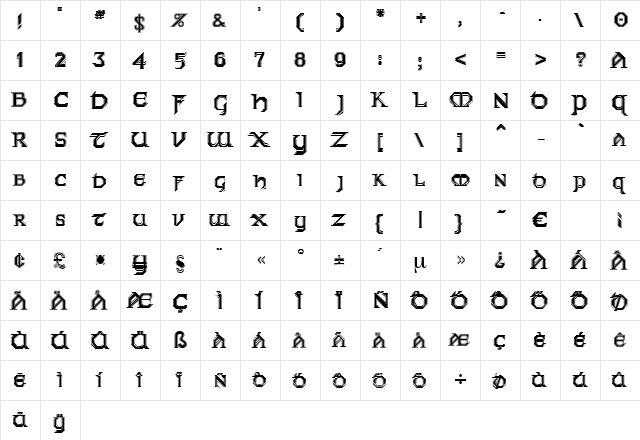
KarthagoInline Regular Font Preview
KarthagoInline Regular
Design Context for KarthagoInline Typeface
KarthagoInline is built around its visual character rather than neutral utility — its distinctive forms are designed to make an impression at display sizes.
Font Pairing: Pair with a clean neutral sans-serif for body copy to let KarthagoInline's character lead without overwhelming the composition.
Pro Tip: Use KarthagoInline exclusively at display sizes — it was designed to be seen, not read at length. Let a neutral companion handle body copy.